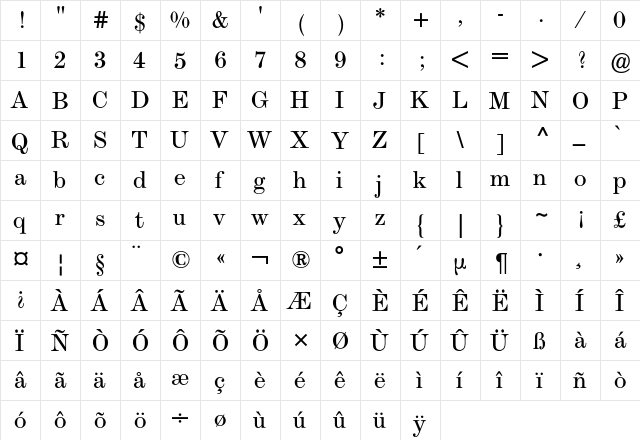
Modern BQ Regular
Design Context for Modern BQ Typeface
Modern BQ is a composed and adaptable typeface that performs quietly and consistently across a wide range of design contexts.